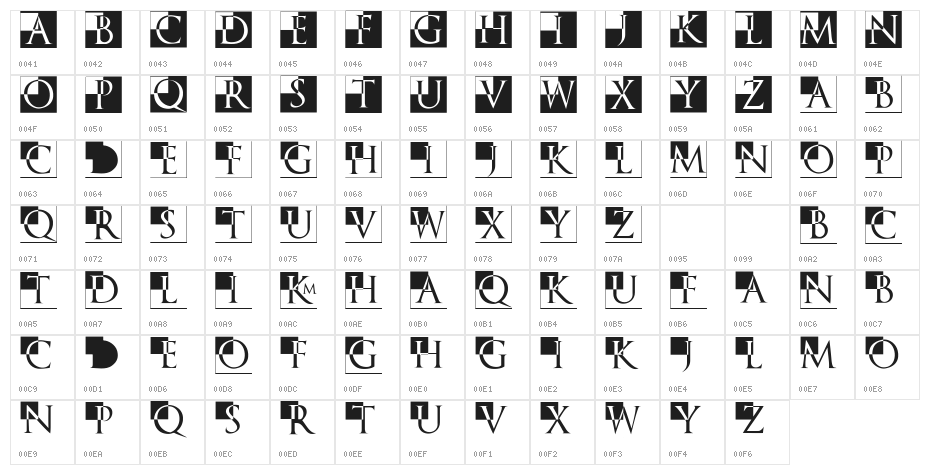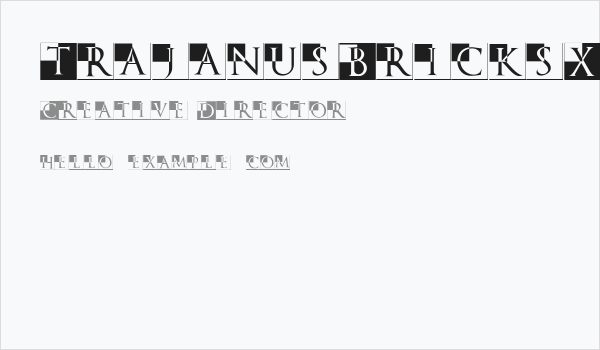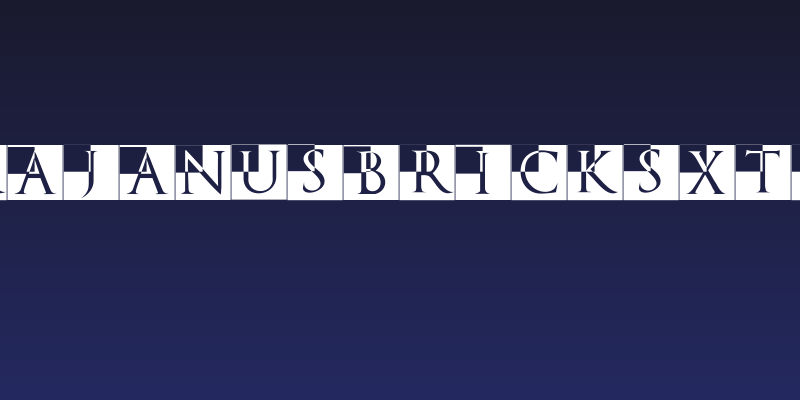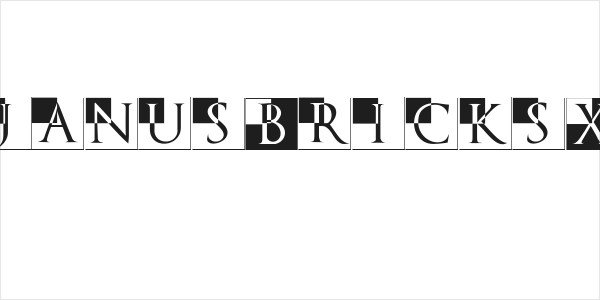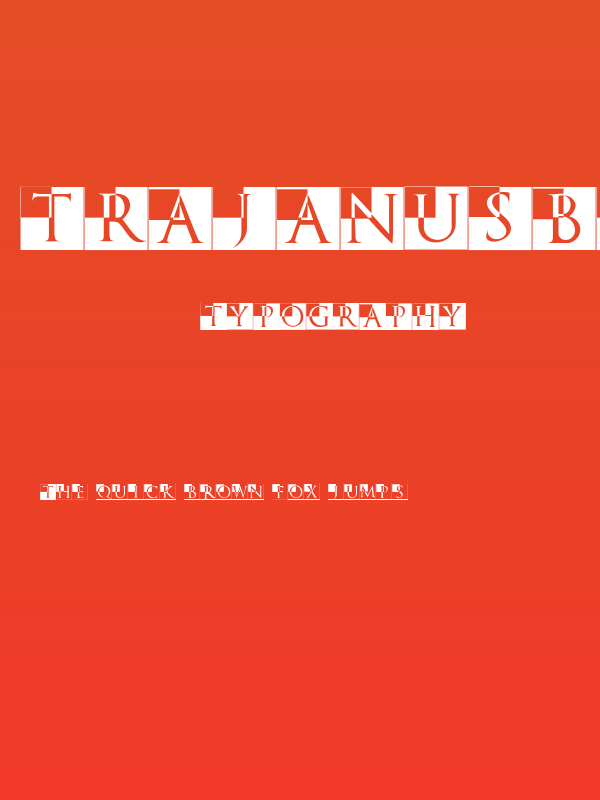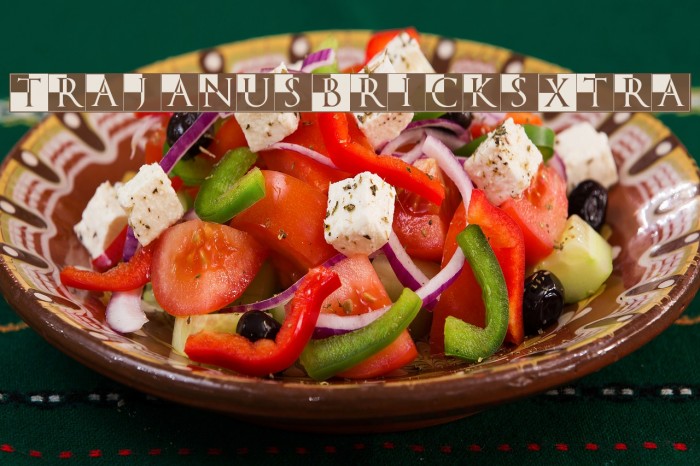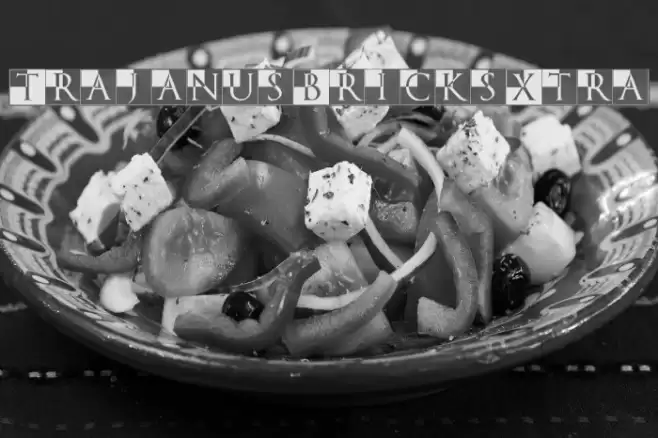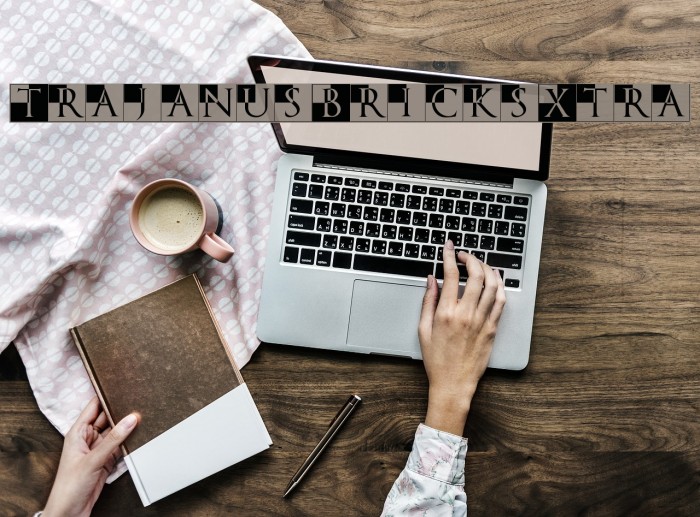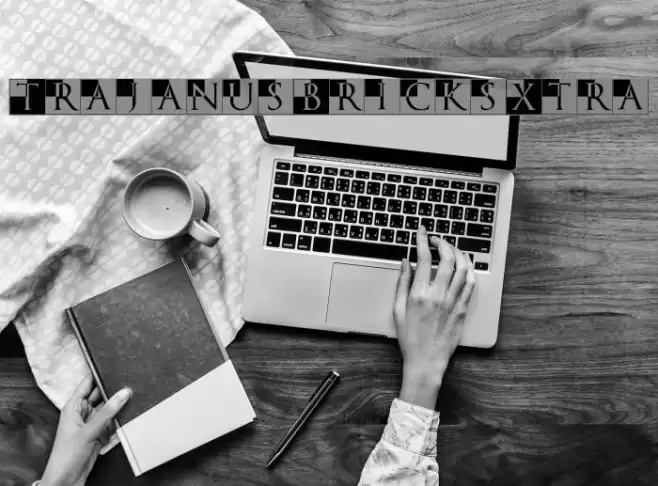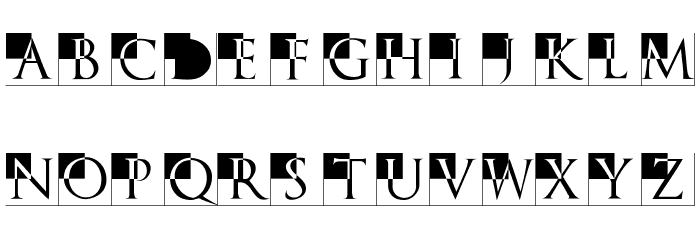
TrajanusBricksXtra Font
TrajanusBricksXtra Description
This font features a unique blend of classical and modern elements, characterized by its bold, geometric shapes and high contrast between thick and thin strokes. The uppercase letters are particularly striking, with sharp serifs and a strong vertical emphasis that gives them a commanding presence. The lowercase letters maintain the same stylistic features, ensuring consistency across the typeface. The overall design is reminiscent of ancient Roman inscriptions, yet it incorporates contemporary design elements that make it suitable for modern applications. The font's distinct style makes it ideal for projects that require a touch of elegance and authority.